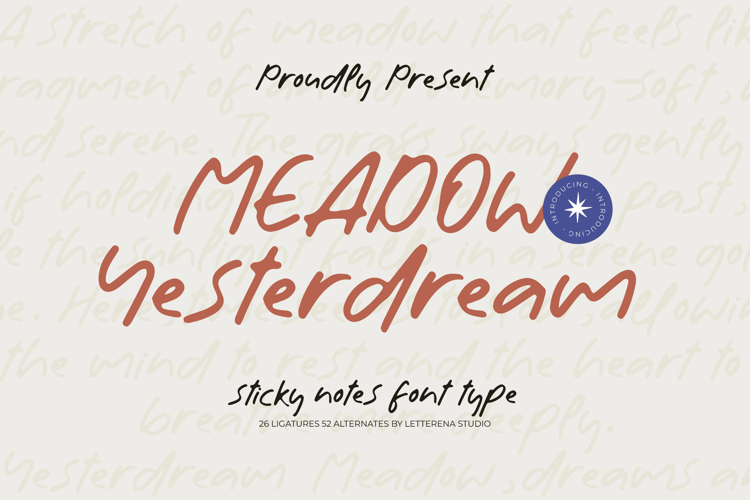
Meadow Yesterdream - Sticky Notes Font Type
Meadow Yesterdream - Sticky Notes Font Type, from Letterena, is a Luxury Script font, suitable for any projects such as: logos, branding projects, homeware designs, product packaging, mugs, quotes, posters, shopping bags, t-shirts, book covers, name card, invitation cards, greeting cards, label, photography, watermark, special events, and all your other luxury and beautiful projects that need a Luxury Script taste.
26 Ligature 52 Alternate & Swashes